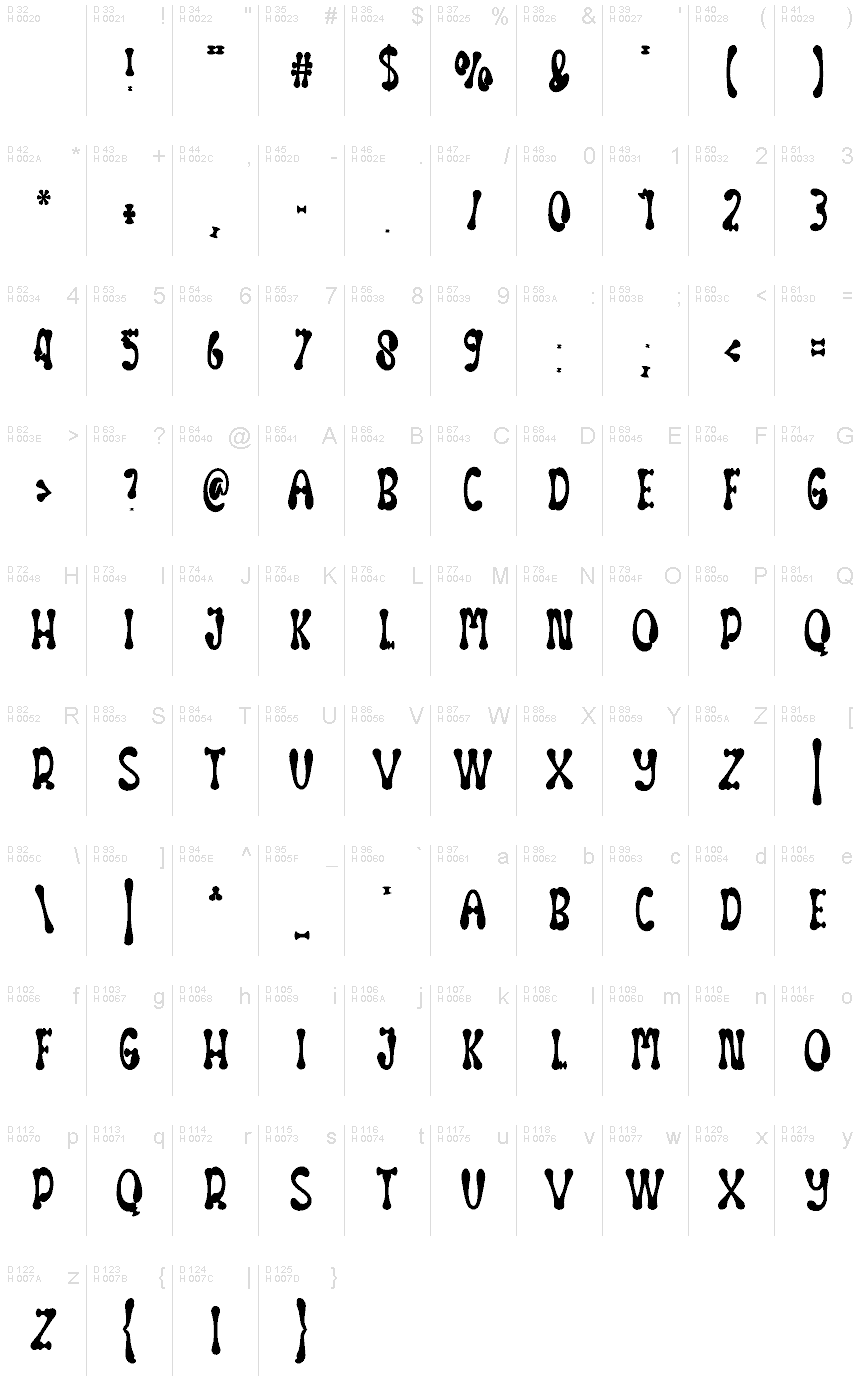
White Bones
White Bones font is a decorative display font with a condensed width. Its unusual and quirky forms give the letters an organic, hand-crafted vibe through the uneven stroke widths and visible textures. The themed typeface was firstly inspired by Halloween which leads to its scary appearance along the skeleton bone elements found in the glyphs.
The twisted characters do not only go along with Halloween as they work for any eerie, horror, or dark design presentation. Think about logos for video games or movies and blog headers to invitation cards for special events such as birthdays or parties.